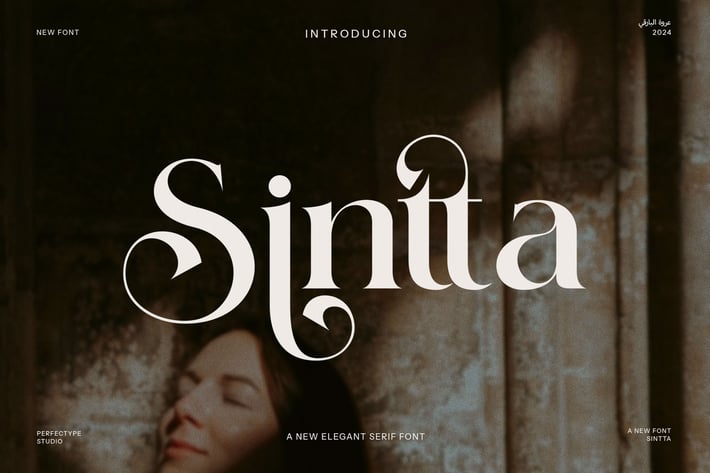
Sintta Elegant Serif Font
Sintta Elegant Serif Font is a modern and sophisticated typeface designed to bring elegance and refinement to any project. With its carefully crafted serifs and unique letterforms, this font stands out for its blend of timeless sophistication and contemporary appeal. Perfect for a wide variety of uses, Sintta Elegant Serif is ideal for logos, branding, websites, magazines, product labels, advertisements, and more.
The font features exquisite ligatures and alternate characters, which provide a high level of customization and artistic flair, making it an excellent choice for designers who want to create distinctive, memorable designs. Whether used for luxury brands, high-end products, boutique shops, or even food packaging, Sintta Elegant Serif conveys a sense of professionalism and elegance.
The balanced proportions and sharp detailing ensure readability across both print and digital media, while the elegant design enhances the visual impact of any text. Its versatility allows it to be used for a wide range of creative applications, from magazine layouts to stylish product packaging and sophisticated advertisements.
Sintta Elegant Serif’s modern yet classic aesthetic ensures it will be a timeless addition to any designer's toolkit. The font's ability to adapt to different branding styles, from minimalist to ornate, makes it a go-to choice for those looking to create impactful, polished designs. Whether you're designing for a luxury boutique, a trendy restaurant, or a contemporary website, Sintta Elegant Serif will elevate your visuals and give your designs the professional touch they deserve.